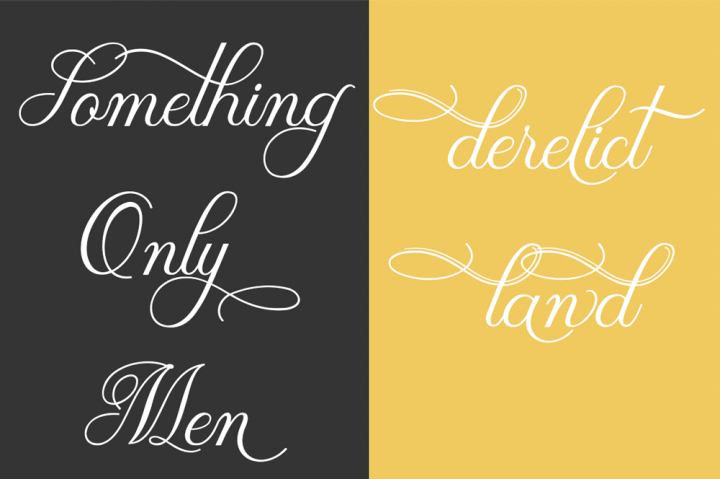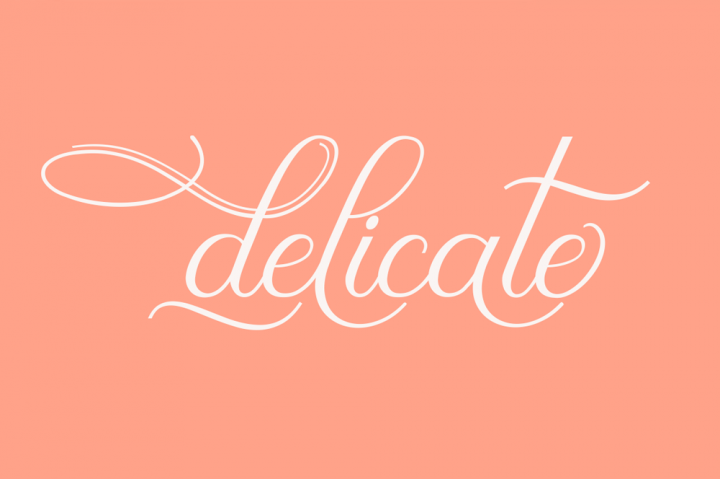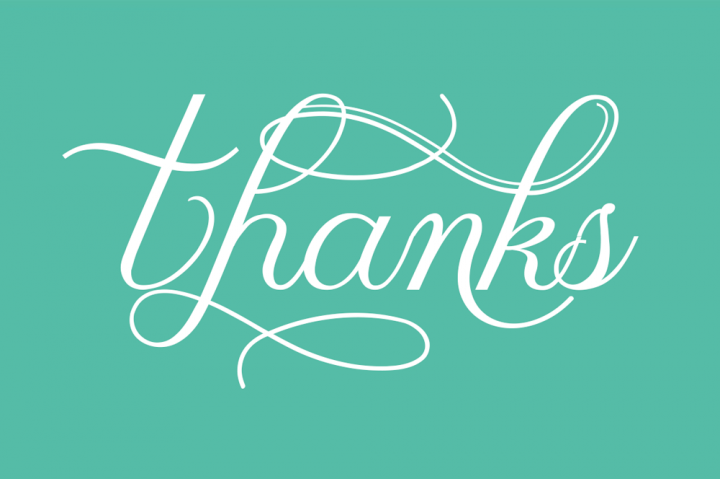
Quality Script
Quality Script Font
INTRODUCE
Quality Script – a new fresh & modern script with a handmade calligraphy style, decorative characters and a dancing baseline! So beautiful on invitation like greeting cards, branding materials, business cards, quotes, posters, and more!